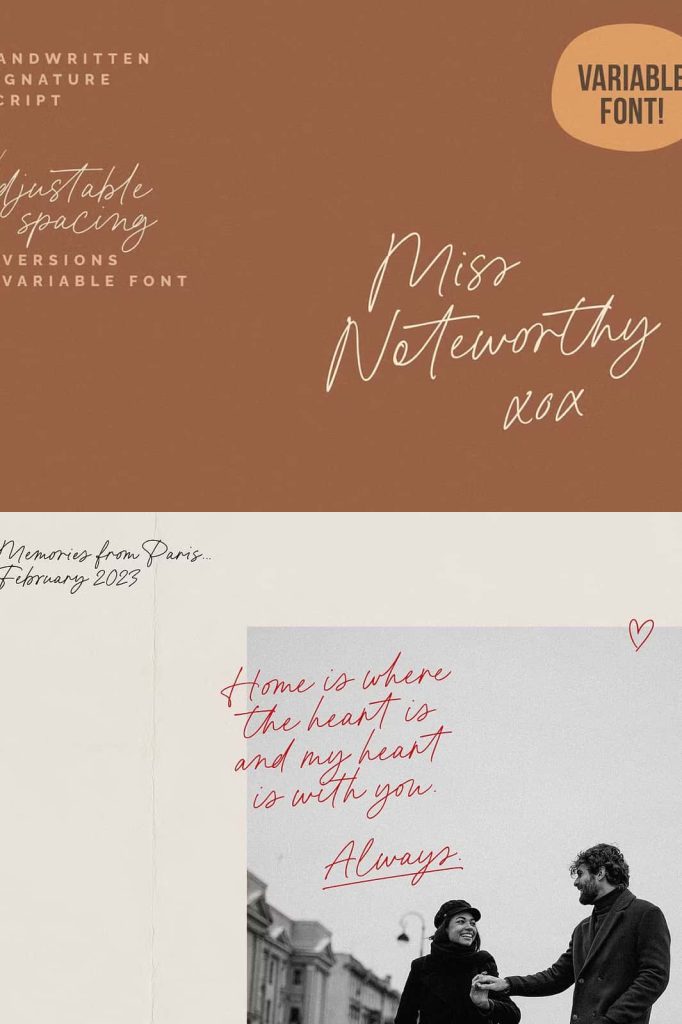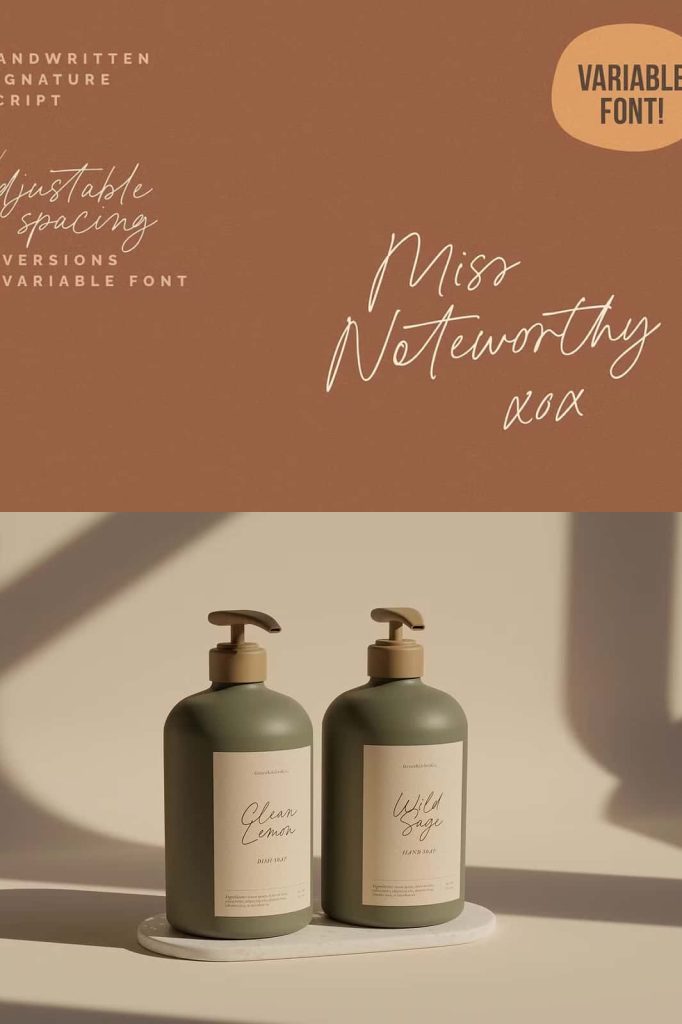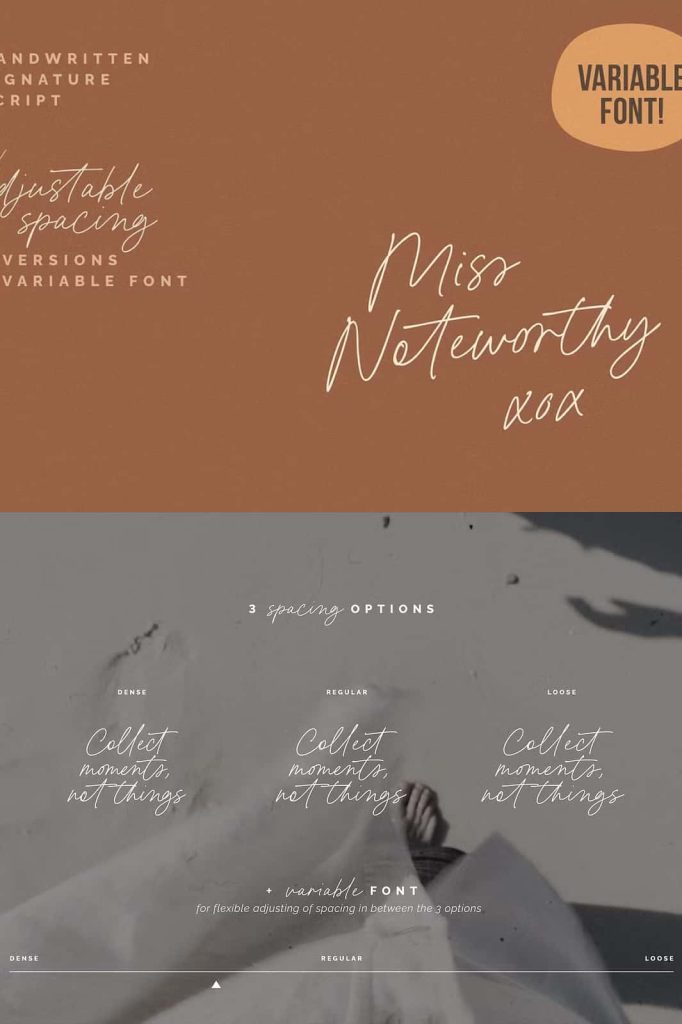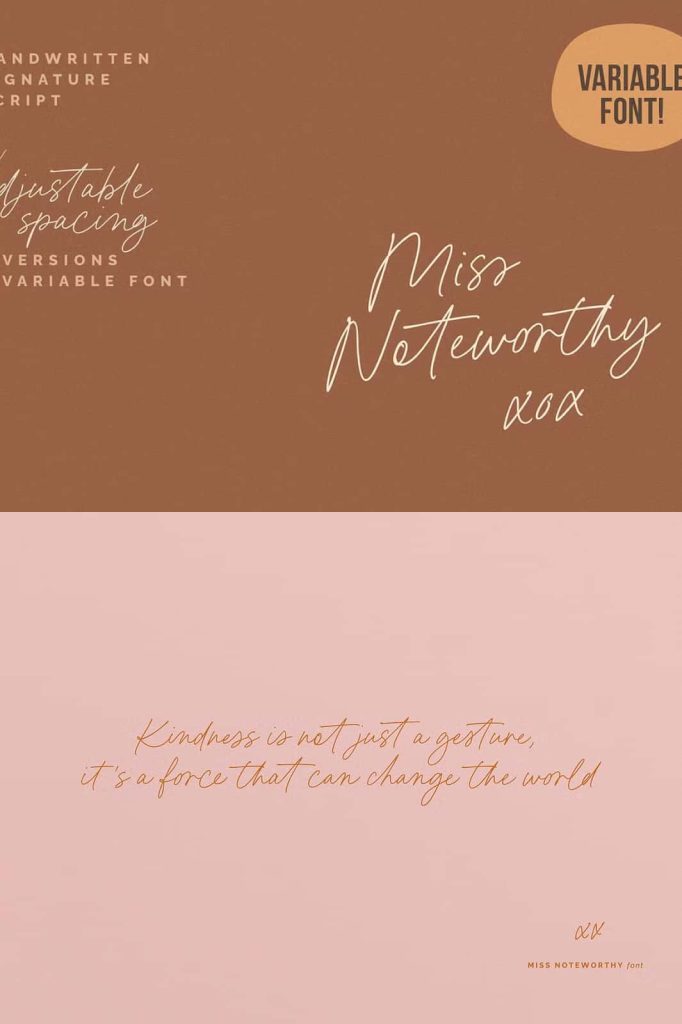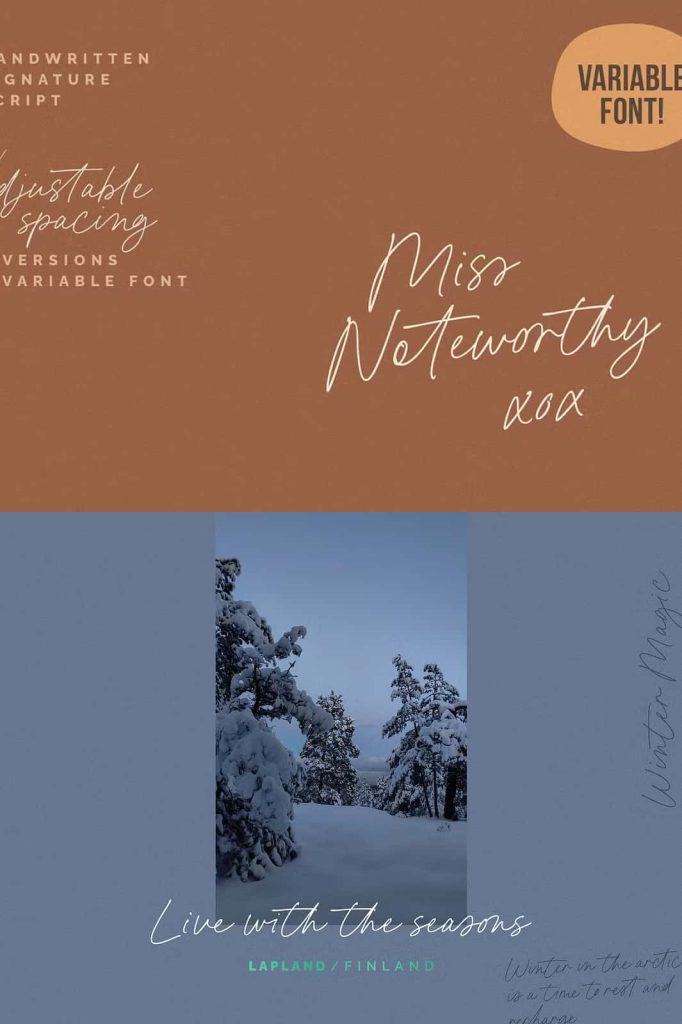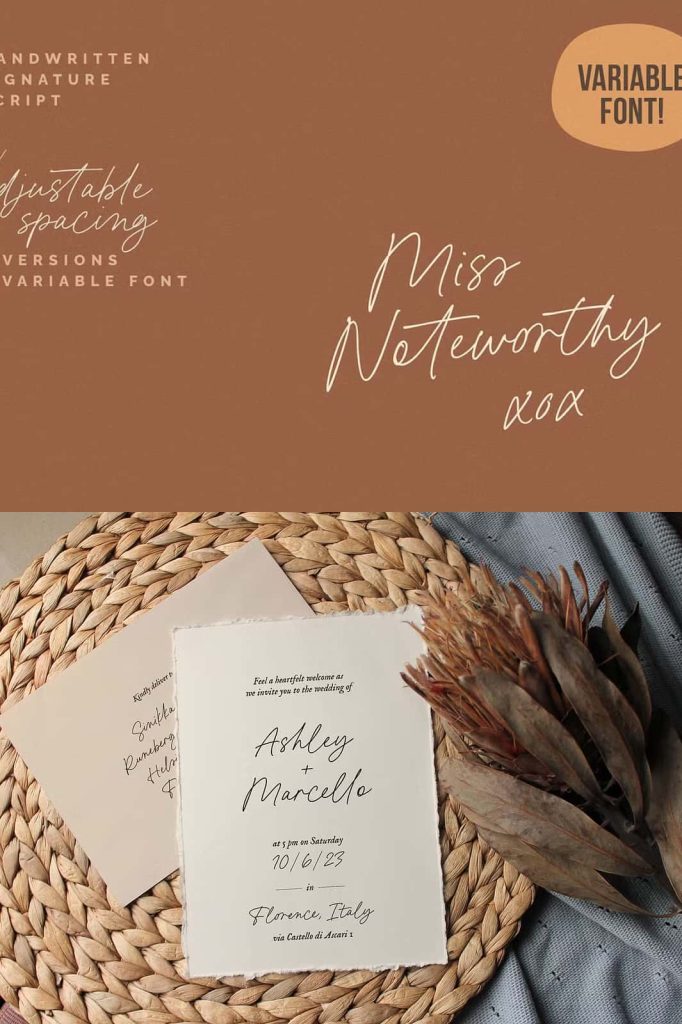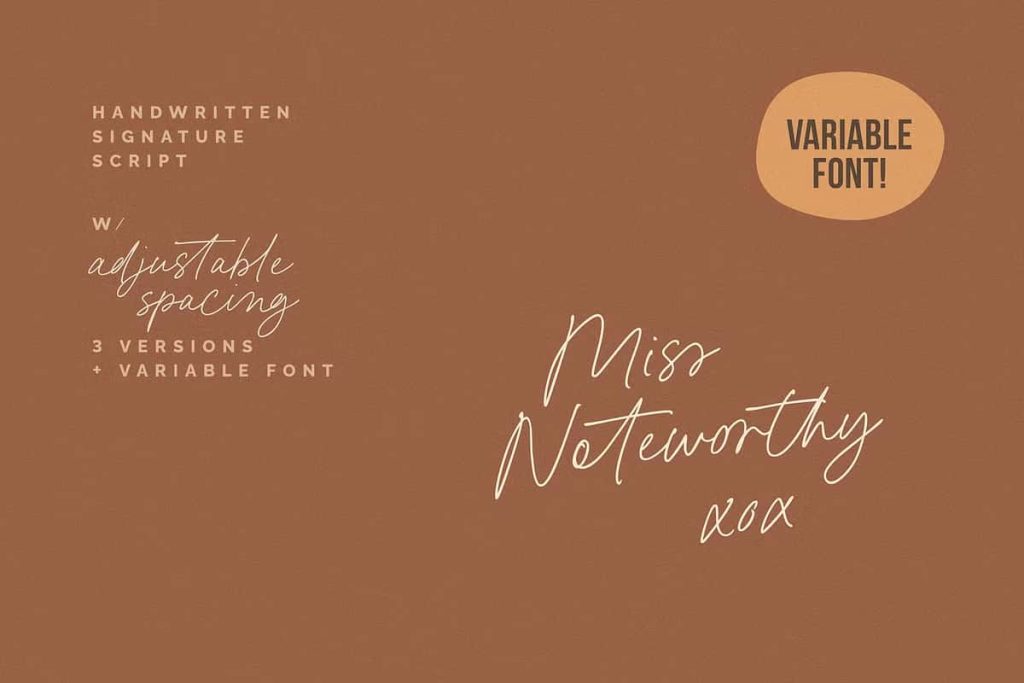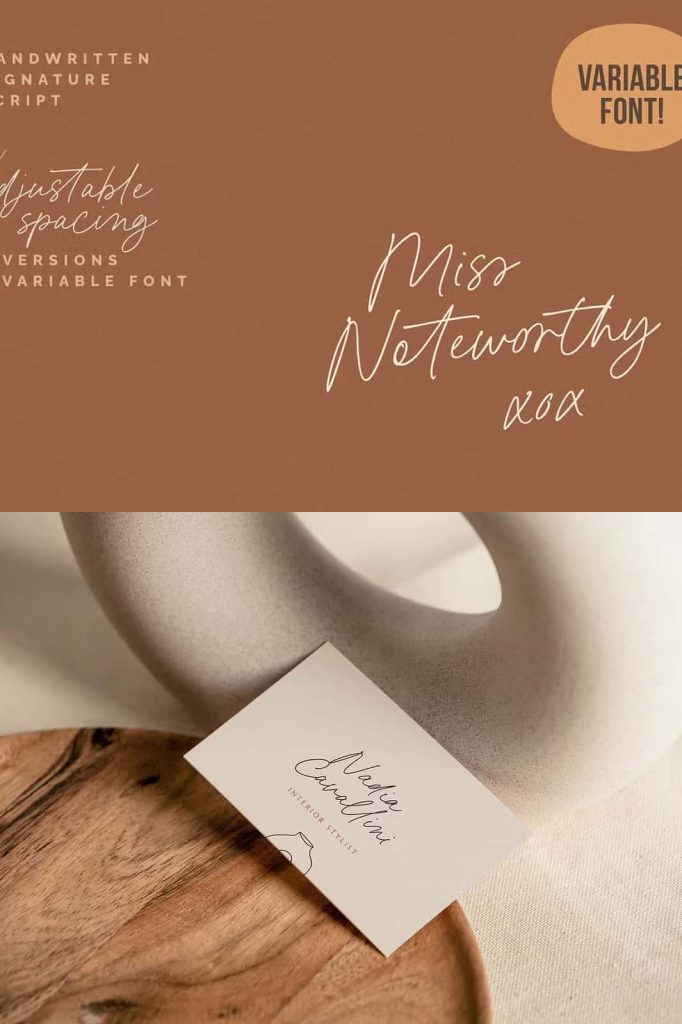
Miss Noteworthy Font: A Luxurious Variable Handwritten Script
Miss Noteworthy is a beautifully crafted variable handwritten font that brings together luxury, authenticity, and expressive style. Designed to deliver an organic handmade feel, this signature script typeface elevates any visual project with refined curves and natural movement. Whether you are creating a logo, enhancing product packaging, or designing cohesive social media content, Miss Noteworthy offers the perfect blend of sophistication and handcrafted charm.
Experience the Beauty of a Variable Signature Script
Miss Noteworthy stands out for its variable capabilities, allowing designers to adjust the thickness and flow of the script to match their creative vision. This flexibility ensures smoother control over mood, rhythm, and emphasis, making the font highly adaptable for different branding and artistic purposes. Its handcrafted forms display thoughtful detail, capturing the fluid motion of real handwriting without sacrificing clarity or elegance.
The variable feature allows you to create bold statement titles or delicate handwritten accents using the same typeface. This makes Miss Noteworthy a powerful tool for designers who value versatility and fine stylistic control. The font retains its beauty across all settings, from minimal contemporary layouts to highly expressive visual compositions.
Perfect for Logos, Packaging, and Elegant Visual Branding
Miss Noteworthy brings a luxurious touch to logo design. Its signature-style strokes add personality and memorability, helping brands build a distinctive identity. Whether applied to fashion labels, boutique product lines, creative studios, or lifestyle brands, this handwritten script conveys warmth and modern sophistication. Its elegant flow ensures that each logo feels timeless and visually striking.
For product packaging, Miss Noteworthy enhances readability and style, offering a natural handmade appearance that elevates the overall presentation. Use it on labels, tags, wrap designs, and promotional materials to create cohesive and attractive brand messaging. The script’s graceful lines pair seamlessly with minimalist layouts, organic textures, and premium visual concepts.
In social media design, Miss Noteworthy offers dynamic personality. Its expressive strokes help graphics stand out in crowded feeds, whether used for quotes, promotional announcements, lifestyle aesthetics, or product showcases. The font maintains legibility across screen sizes, making it ideal for mobile-friendly content and digital storytelling.
Why Designers Choose Miss Noteworthy
Designers choose Miss Noteworthy because it balances handcrafted charm with modern refinement. Many handwritten fonts lean heavily toward casual or decorative styles, but Miss Noteworthy achieves a higher level of polish. Its organic letter connections create smooth visual flow, while its detailed construction reflects careful artistry.
The variable nature of the font provides an additional layer of creativity. Designers can adjust script weight to fine-tune mood and visual texture, improving cohesion across multiple design assets. This feature makes Miss Noteworthy suitable for both bold headlines and subtle script details, providing outstanding versatility for brand-heavy projects.
Enhance Your Creative Projects with a Handmade Luxury Aesthetic
Miss Noteworthy thrives in projects that demand elegance, personalization, and expressive visual presence. Its organic movement and clean signature style help transform simple designs into polished and engaging compositions. Whether you work in print or digital media, the font maintains a refined balance of artistry and professionalism.
Apply Miss Noteworthy to invitations, brand identity systems, stationery, thank-you cards, website headers, editorial layouts, lifestyle marketing, and high-end visual campaigns. Its timeless aesthetic ensures that every piece feels cohesive, stylish, and thoughtfully designed.
Miss Noteworthy is a luxurious variable handwritten font that elevates creative projects with organic handwriting and elegant signature style. Perfect for logos, product packaging, social media graphics, branding systems, and sophisticated visual storytelling, this typeface provides expressive beauty and professional refinement. With its graceful curves and variable flexibility, Miss Noteworthy empowers designers to craft compelling, high-quality designs that leave a lasting impression.